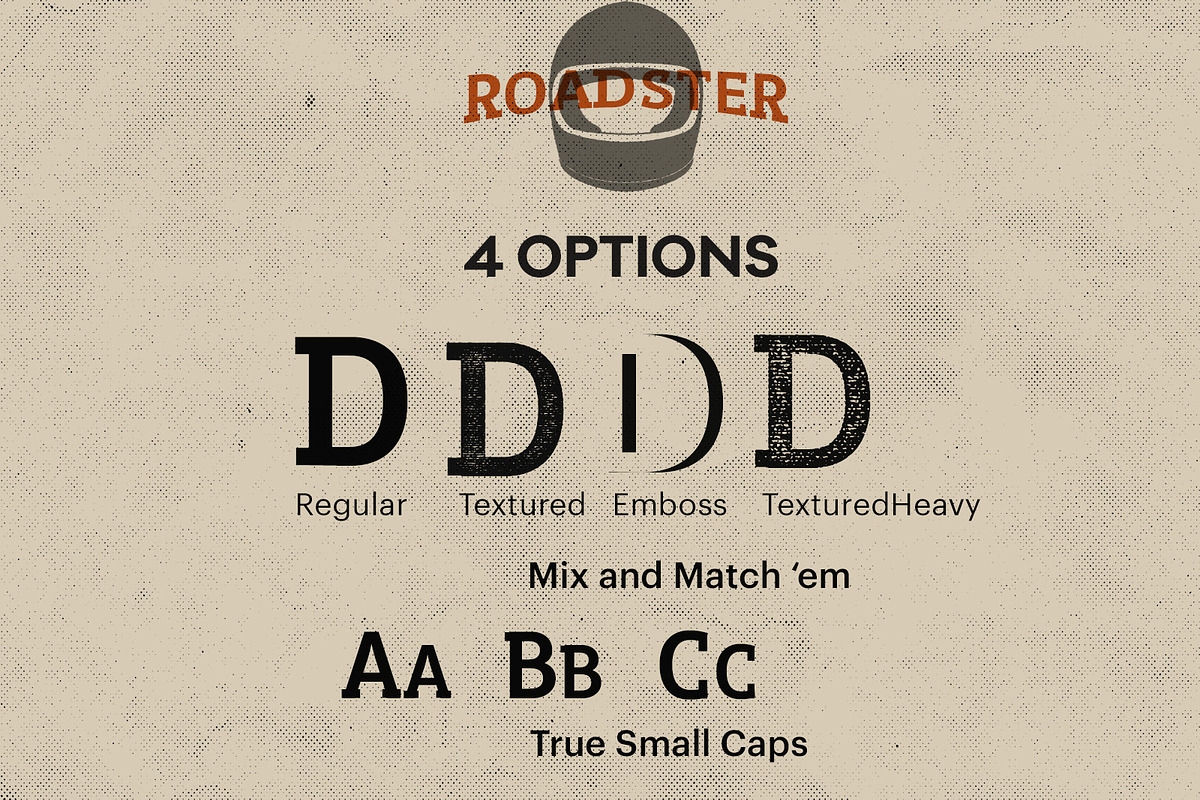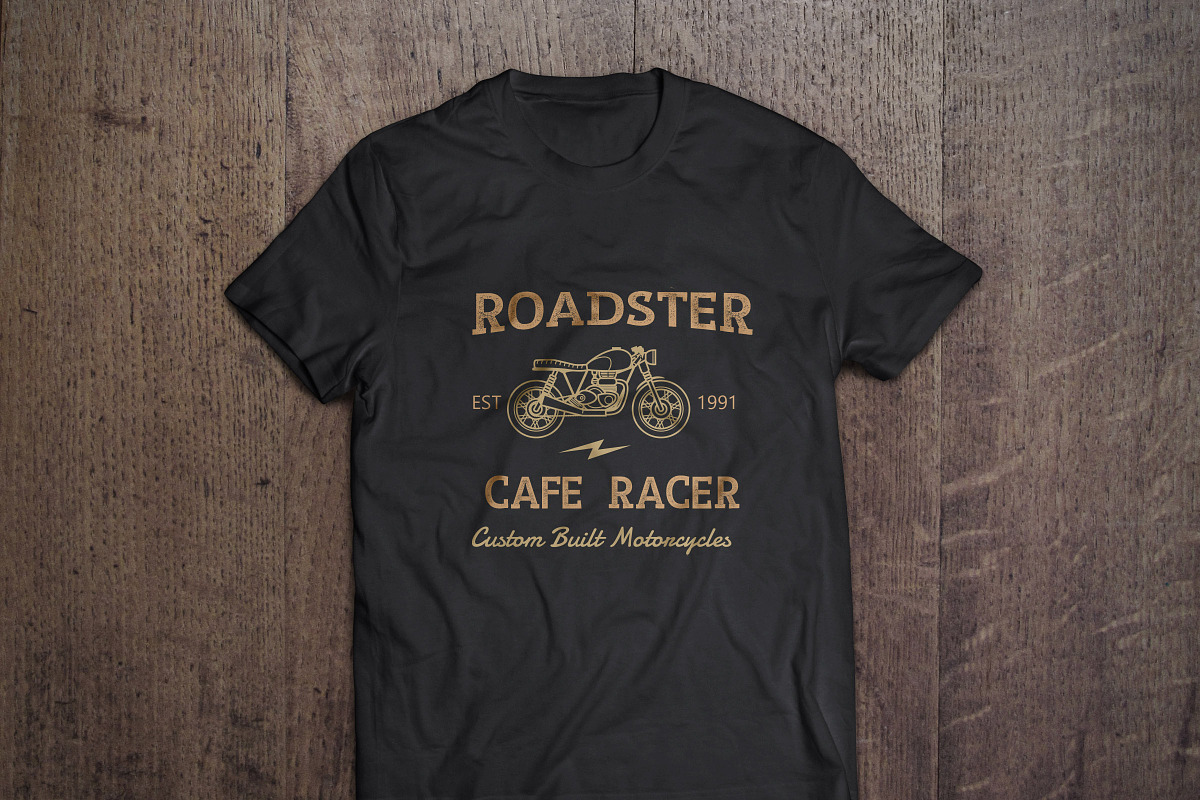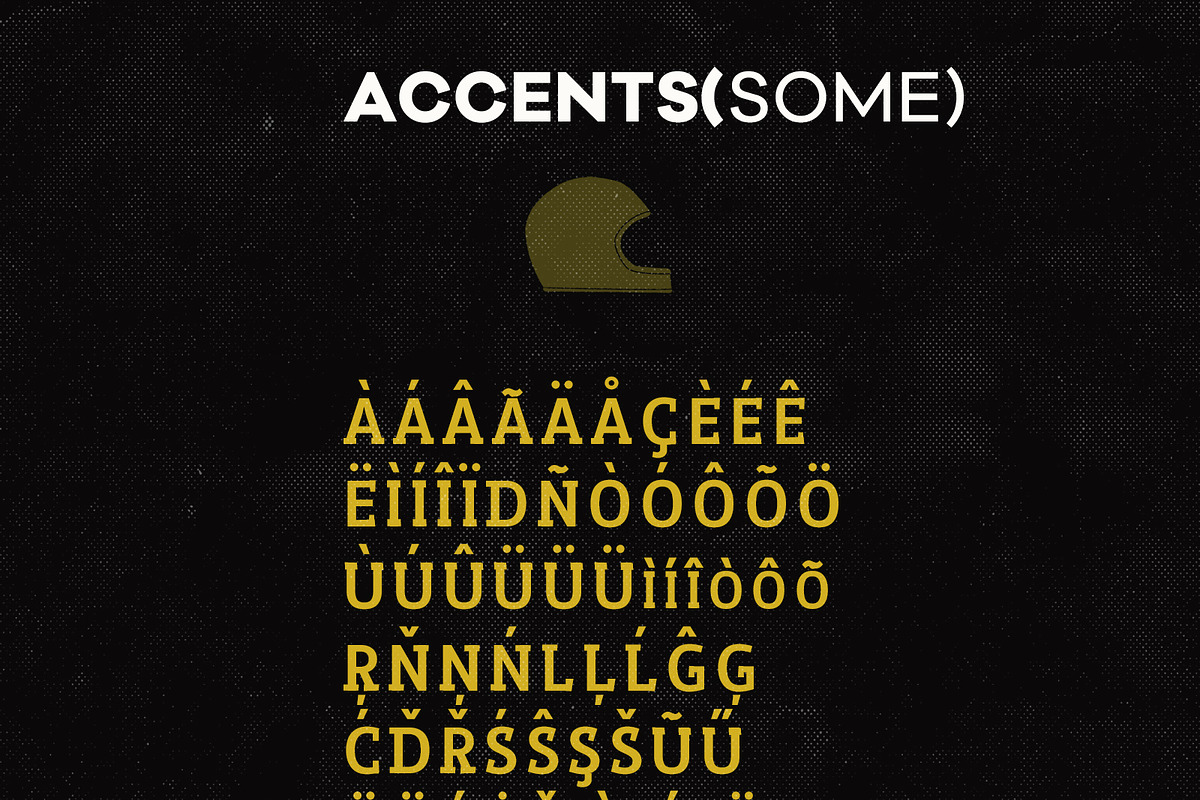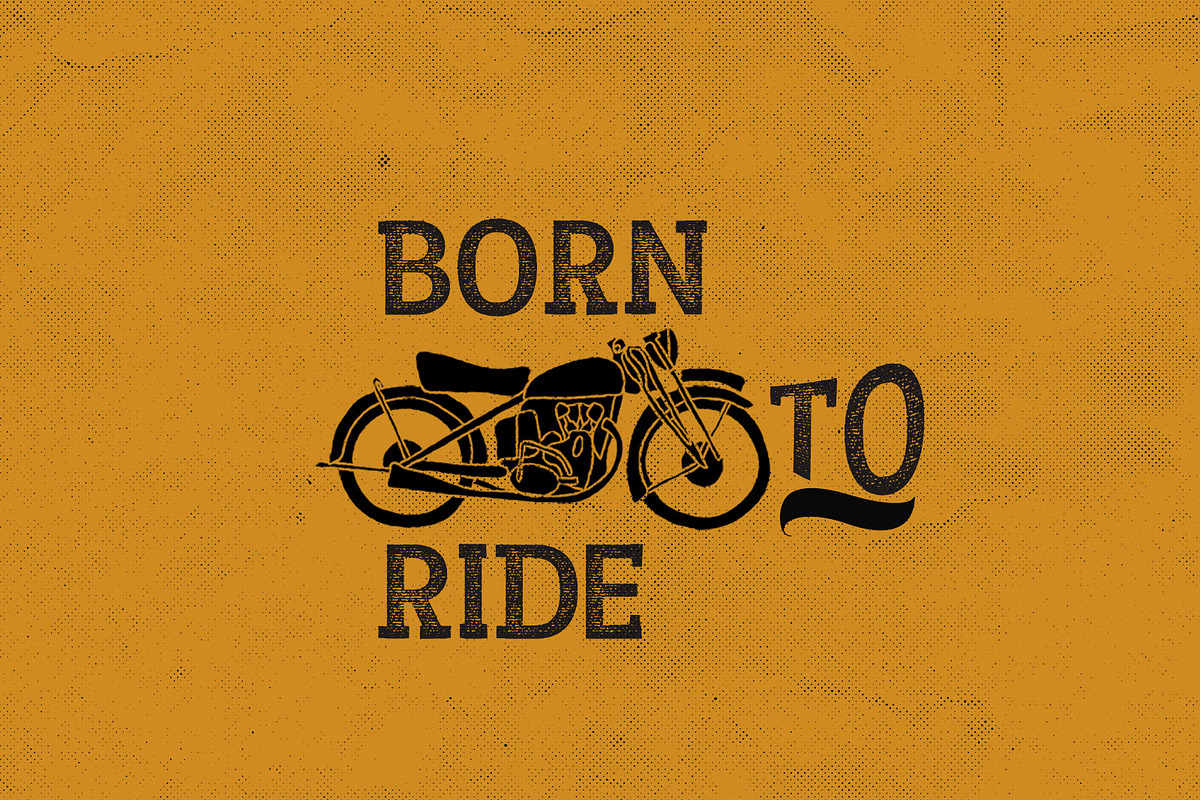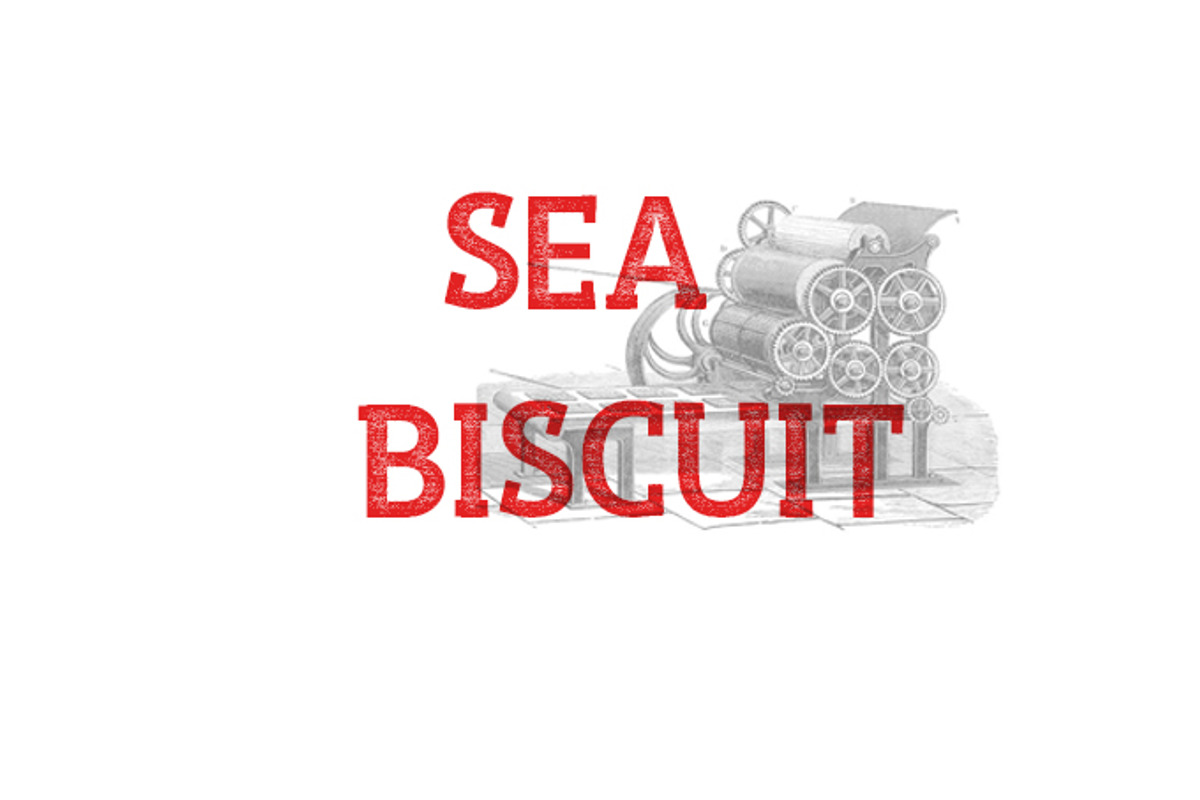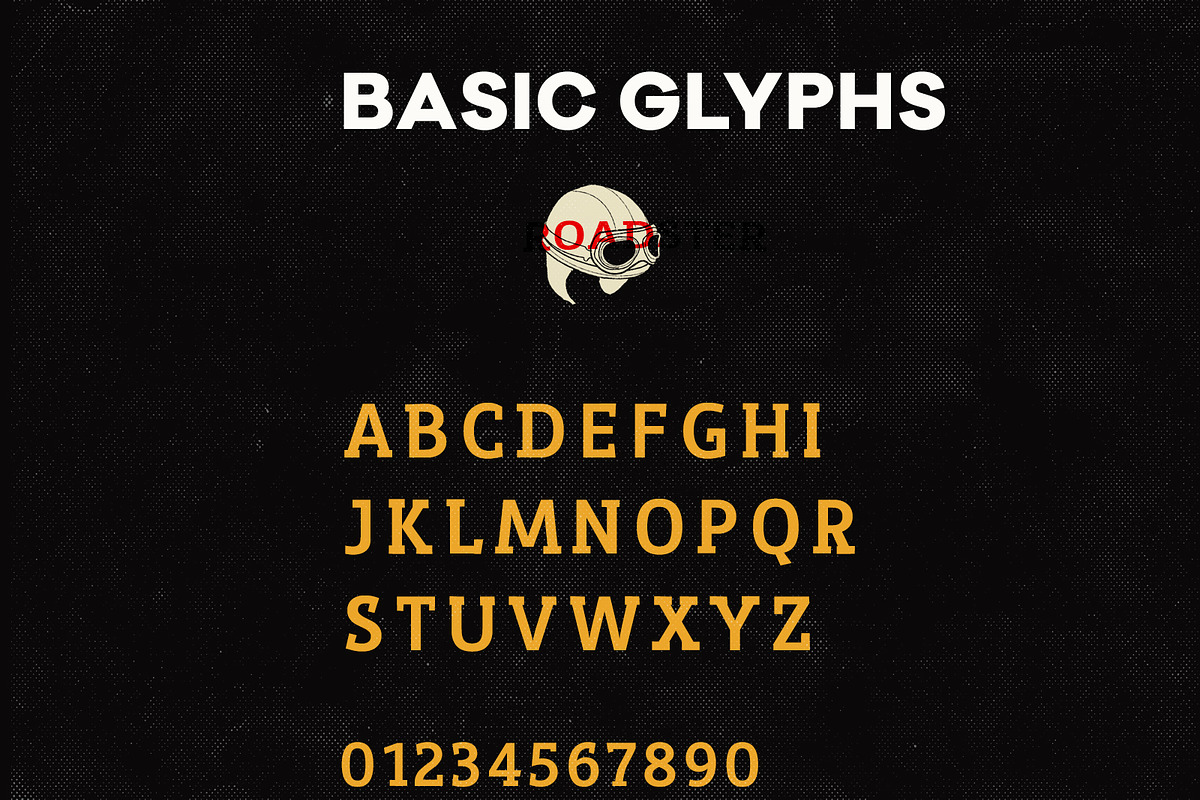
Roadster Typeface
Roadster Typeface by Nautica Studios is a font selected for branding, posters, packaging, typography.
Why Roadster Typeface is worth a look
Roadster Typeface by Nautica Studios fits naturally into Branding, posters, packaging, typography.